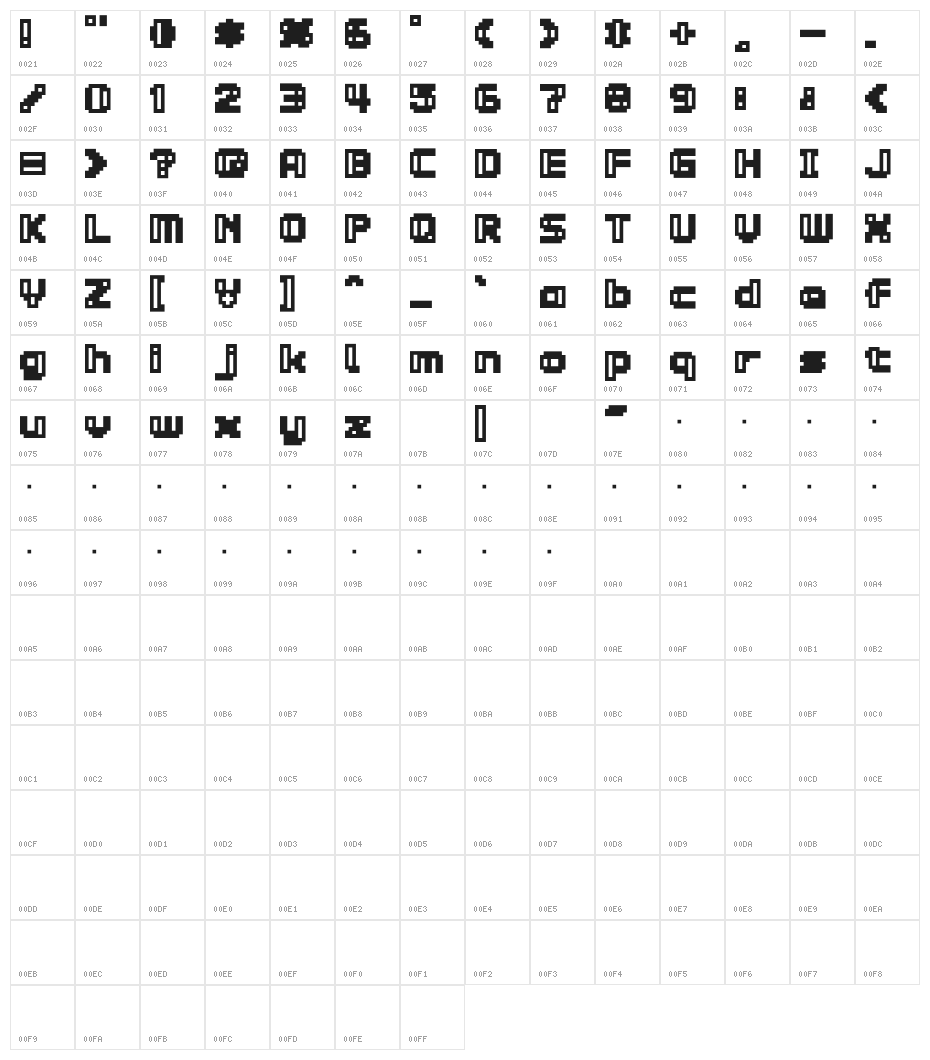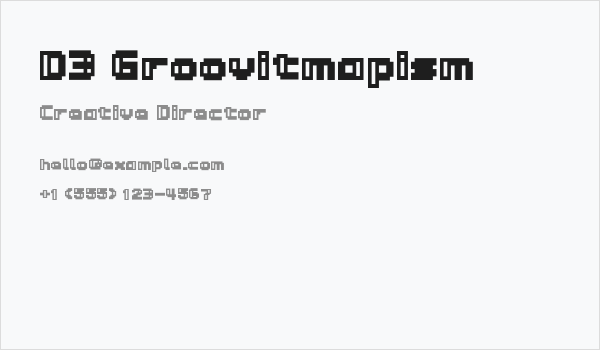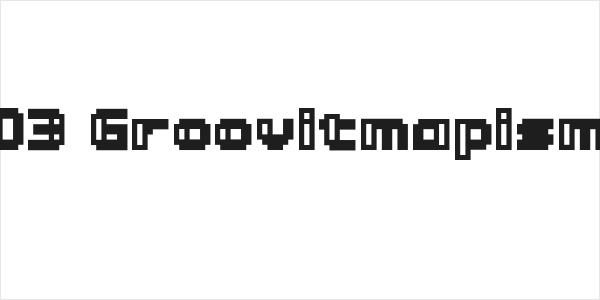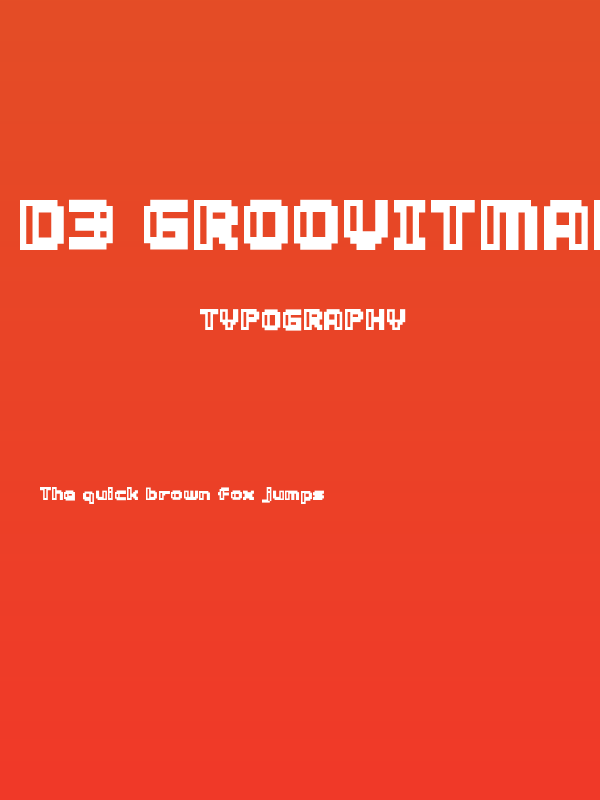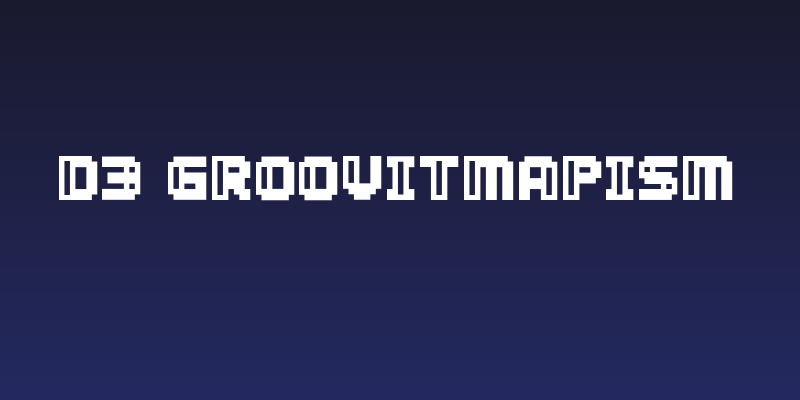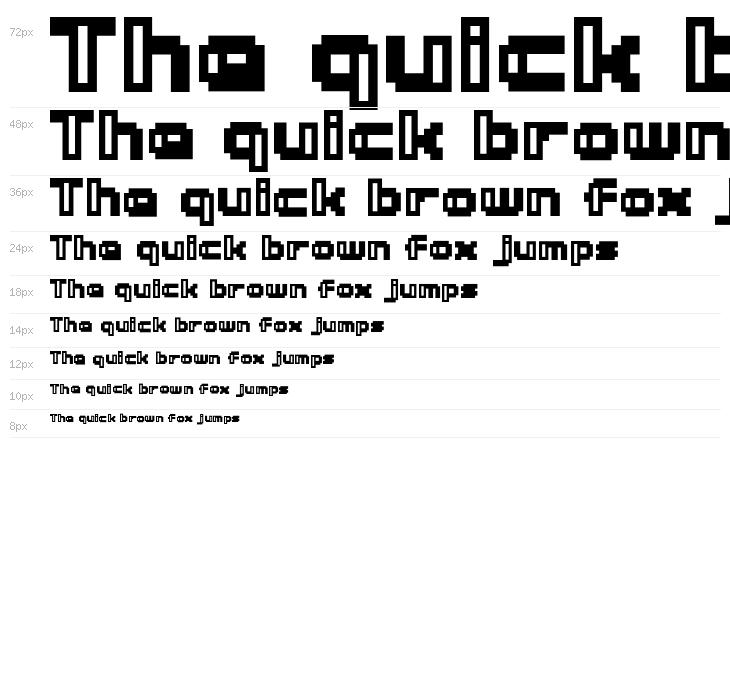
D3 Groovitmapism Font
D3 Groovitmapism Description
This font features a bold, pixelated style reminiscent of early digital or video game typography. Each character is constructed with a blocky, geometric design, emphasizing a retro, tech-inspired aesthetic. The uppercase and lowercase letters maintain a consistent height, contributing to a uniform appearance. Numbers and special characters follow the same pixelated pattern, ensuring cohesion across all elements. The font's design is straightforward, with no curves or embellishments, making it highly legible and ideal for digital displays or projects that require a nostalgic, arcade-like feel.
| Overall Style | Retro, Digital |
| Use Case | Headlines, Logos, Digital displays |
| Proposed Projects | Ideal for video game design, digital art projects, retro-themed posters, and tech-related branding. |